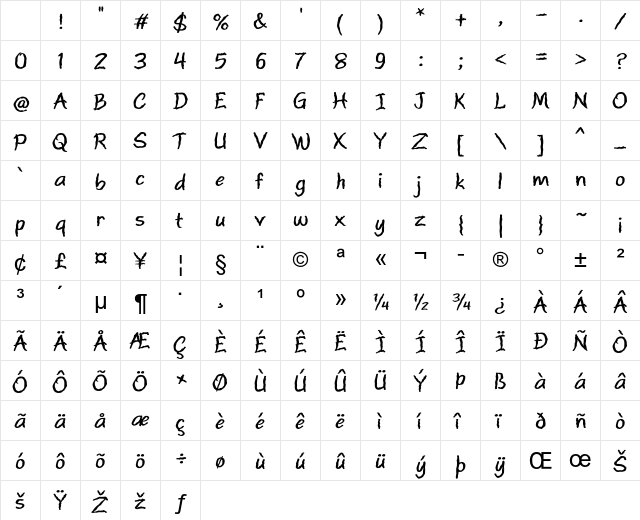
Complete Spinetingler Bold glyph index. Displaying only characters natively supported by Spinetingler Bold font.
Spinetingler is a composed and adaptable typeface that performs quietly and consistently across a wide range of design contexts. Its bold stroke weight gives it real presence on the page.